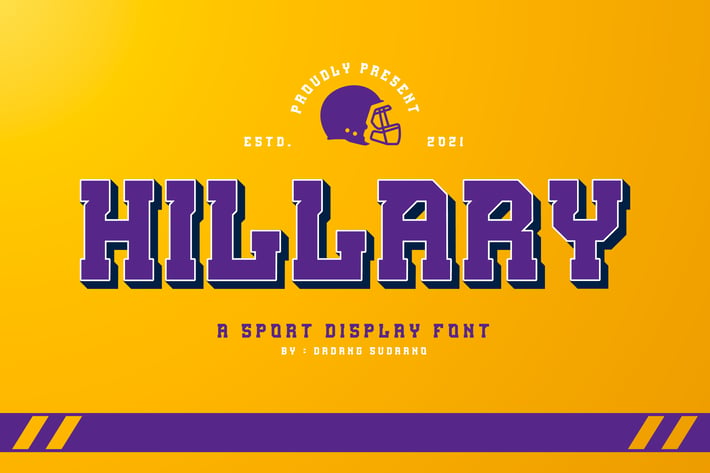
Hillary - A Sport Display Font
“HILLARY” is a sport display based typeface which includes 5 variations. It has a strong image that be inspired by sport branding. It was created to be tall and bold. It also has a beautiful spacing between each character. Easy tweaking shape make the logo, headline, banner, title, jersey and wordmarks more outstanding when it is used. Suitable for Esport, Sport and Gaming Team logo.